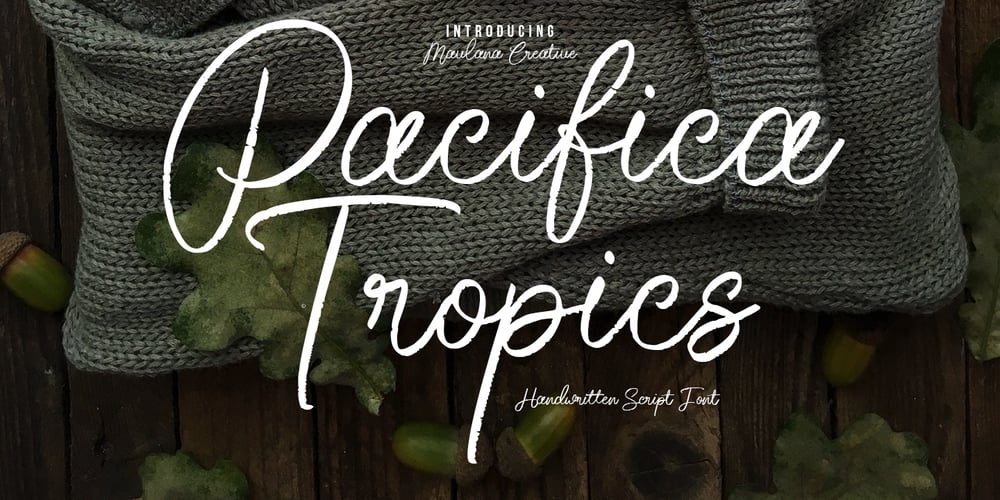
Pacifica Tropics
Pacifica Tropics font
Pacifica Tropics Font Family was designed by Gilang Maulana and published by Maulana Creative. Pacifica Tropics contains 1 styles and family package options. Pacifica Tropics is a fancy handwritten script font. With regular rough stroke, fun character with a bit of ligatures and alternates. To give you an extra creative work. Pacifica Tropics font support multilingual more than 100+ language. This font is good for logo design, Social media, Movie Titles, Books Titles, a short text even a long text letter and good for your secondary text font with sans or serif. Make a stunning work with Pacifica Tropics font. Cheers, Maulana Creative